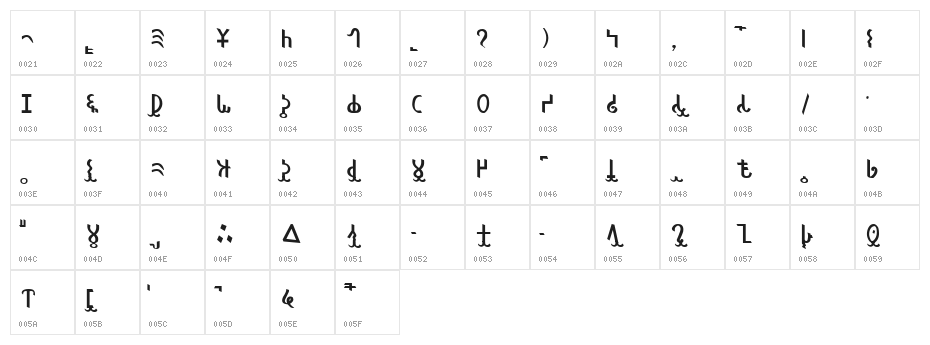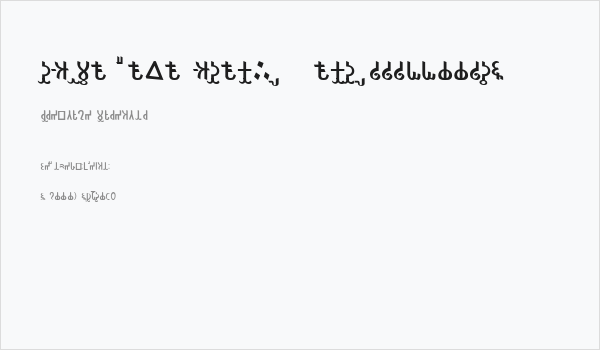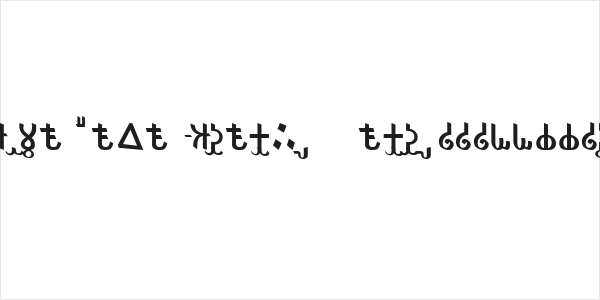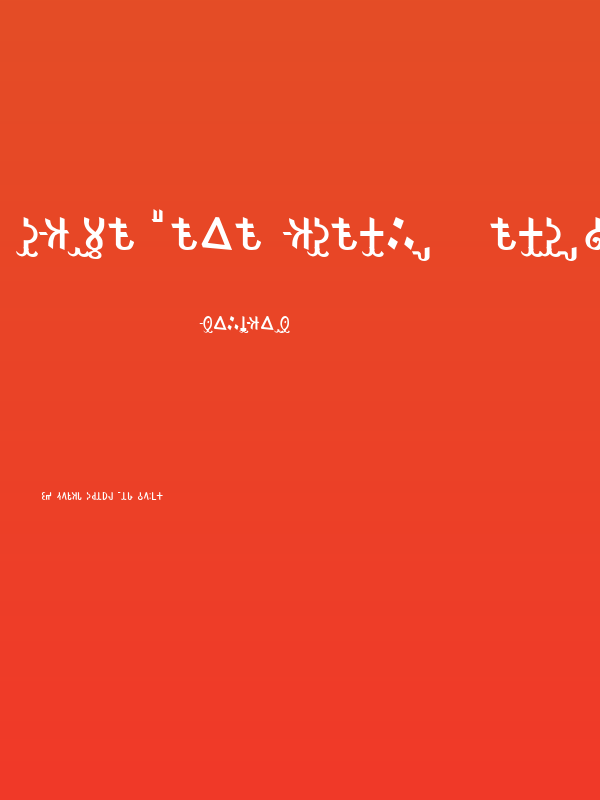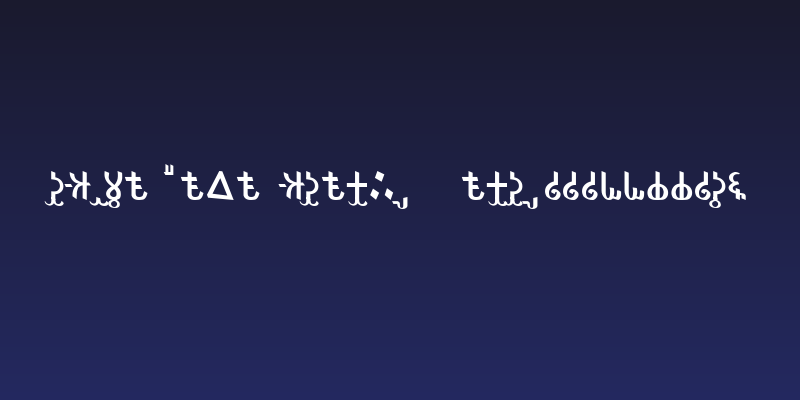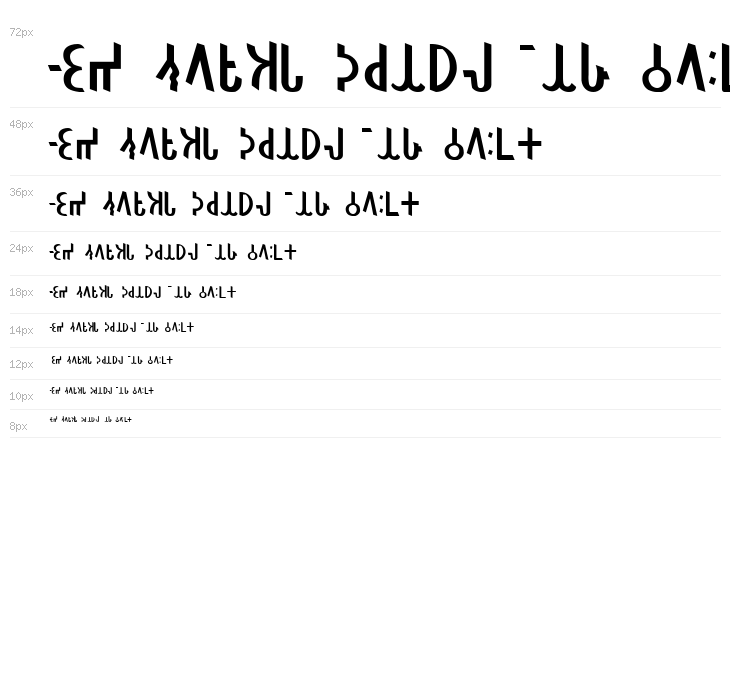
BRAHMI LIPI RABISON ISBN9993355941 Font
BRAHMI LIPI RABISON ISBN9993355941 Description
This script is a representation of an ancient writing system, characterized by its unique and intricate glyphs. The characters exhibit a blend of geometric and organic shapes, with some letters featuring sharp angles and others displaying smooth curves. The script is visually striking, with a bold presence that commands attention. Each character is distinct, yet they collectively form a cohesive and harmonious set. The design reflects a historical and cultural richness, making it ideal for projects that aim to evoke a sense of antiquity and tradition.
| Overall Style | Historical, Decorative |
| Use Case | Artistic displays, Educational materials, Cultural projects |
| Proposed Projects | Ideal for historical documentaries, educational materials on ancient cultures, or artistic projects that require a touch of antiquity. |